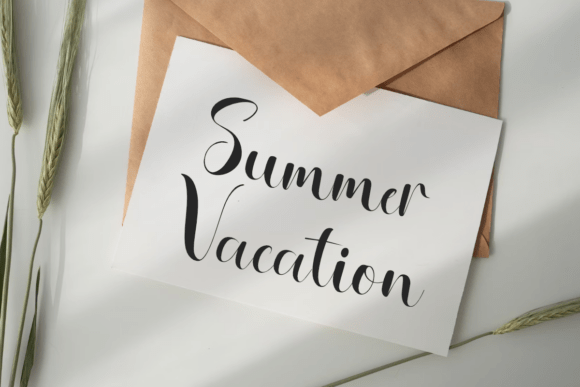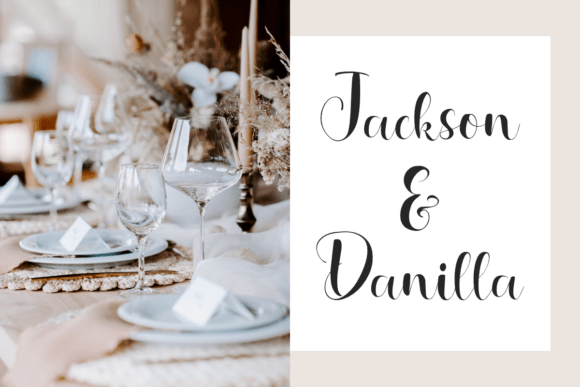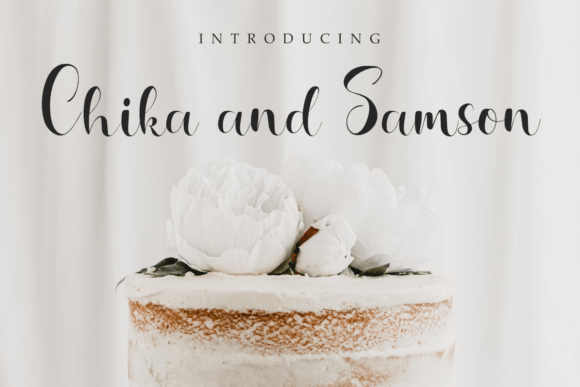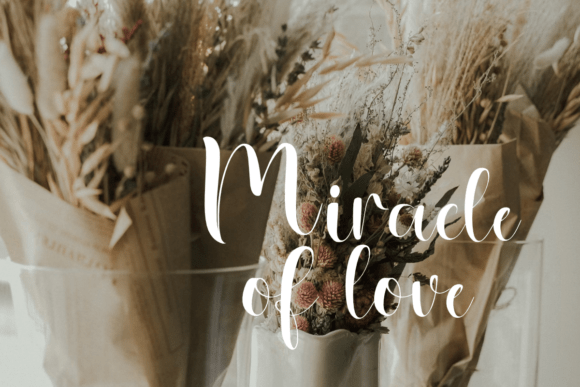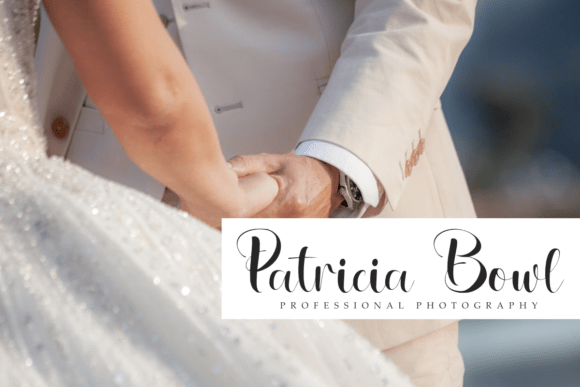
Introduction to Halloween Handwritin Font
✒️ Halloween Handwritin typeface – A Charming, Versatile Script Halloween Handwritin typeface is an elegant handwritten font that captures the warm, authentic charm of natural pen strokes.
Its effortless style adds a personal, stylish touch to every project—from laser cutting and embroidery to digital planners, tumbler designs , and sticker sets This font shines in a wide range of creative applications.
Key Features of Halloween Handwritin Font
Why Choose Halloween Handwritin Font?
Halloween Handwritin Font offers exceptional quality and versatility, making it a valuable addition to your design toolkit. Whether you’re creating for personal projects or commercial use, Halloween Handwritin Font delivers professional results.